Create font based logo design in 3 easy steps
We will show you how to create a text logo using any brand name. No previous design skills or special tools are required.
Font based logo, or text logo, is one type of logo design that doesn’t include a separate logo symbol. Instead, a text logo design is created using a stylish font and text layout in order to create a unique visual of the brand. In this article, we will show you how to create a text logo using any brand name. No previous design skills or special tools are required.
Step 1. Enter your logo name
For a text logo, a shorter name usually works better because with larger text, more font details can be recognized. In this example, we will use the name “Tiktok” as an example
Step 2. Select font styles for your logo
There are 6 font styles available to choose from and when you hover mouse over each selection you will see some examples. Since Tiktok logo we are making is supposed to be fun and targeting a younger audience, we’ve selected both playful and futuristic font styles
Step 3. Choose the text logo you like and revise
Based on the logo information we’ve entered, we are presented with many different logo design options
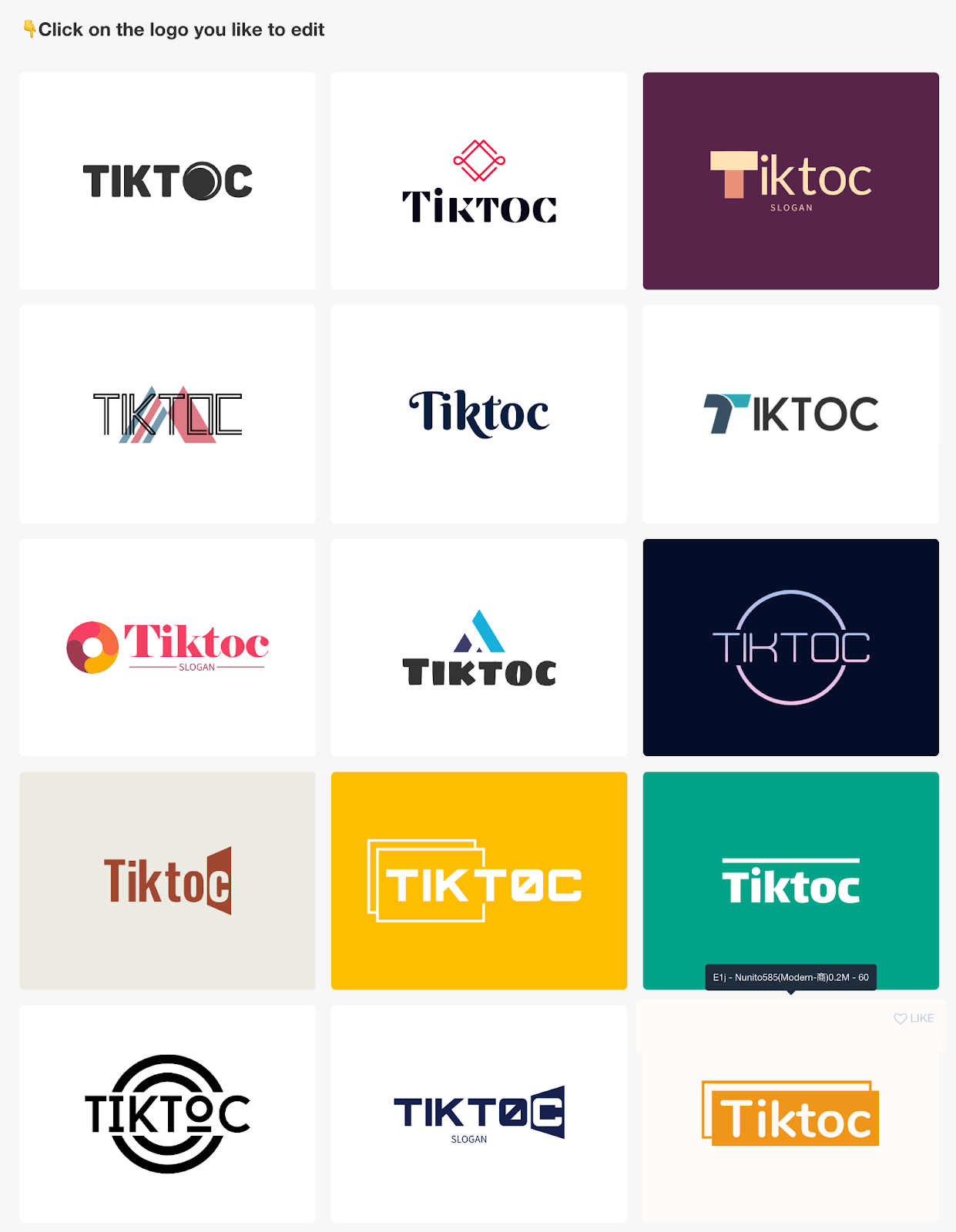
When you find a design that you like, you can click on the edit button to tweak details of this design.
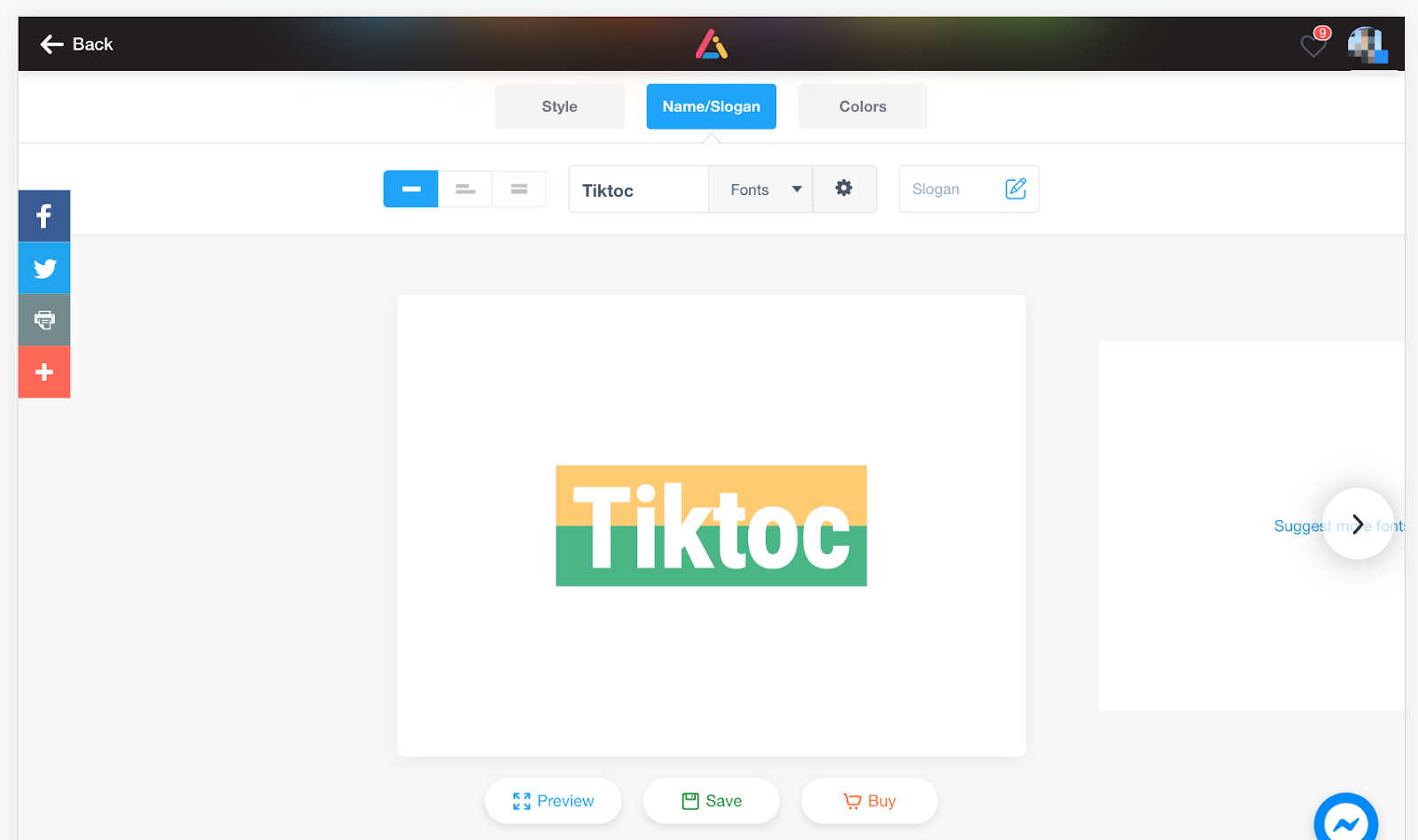
You can add a slogan and go to the colors tab to see different color combinations of this design.
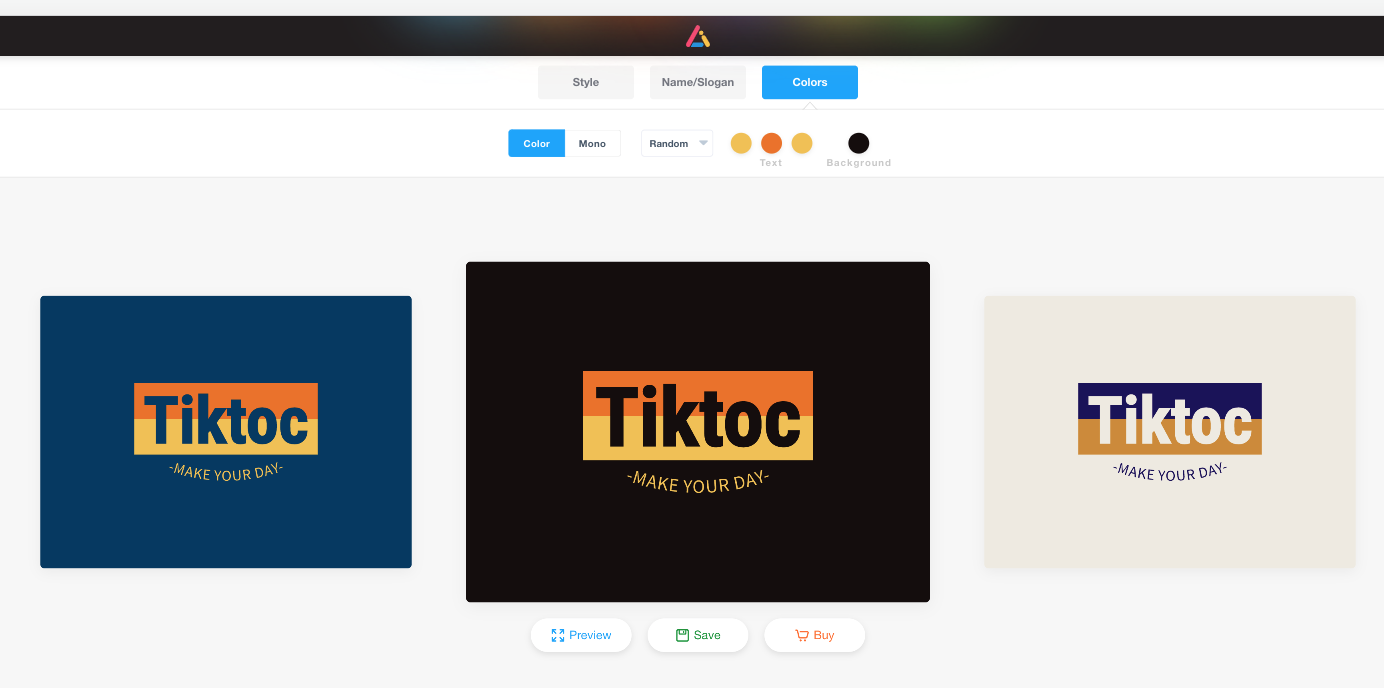
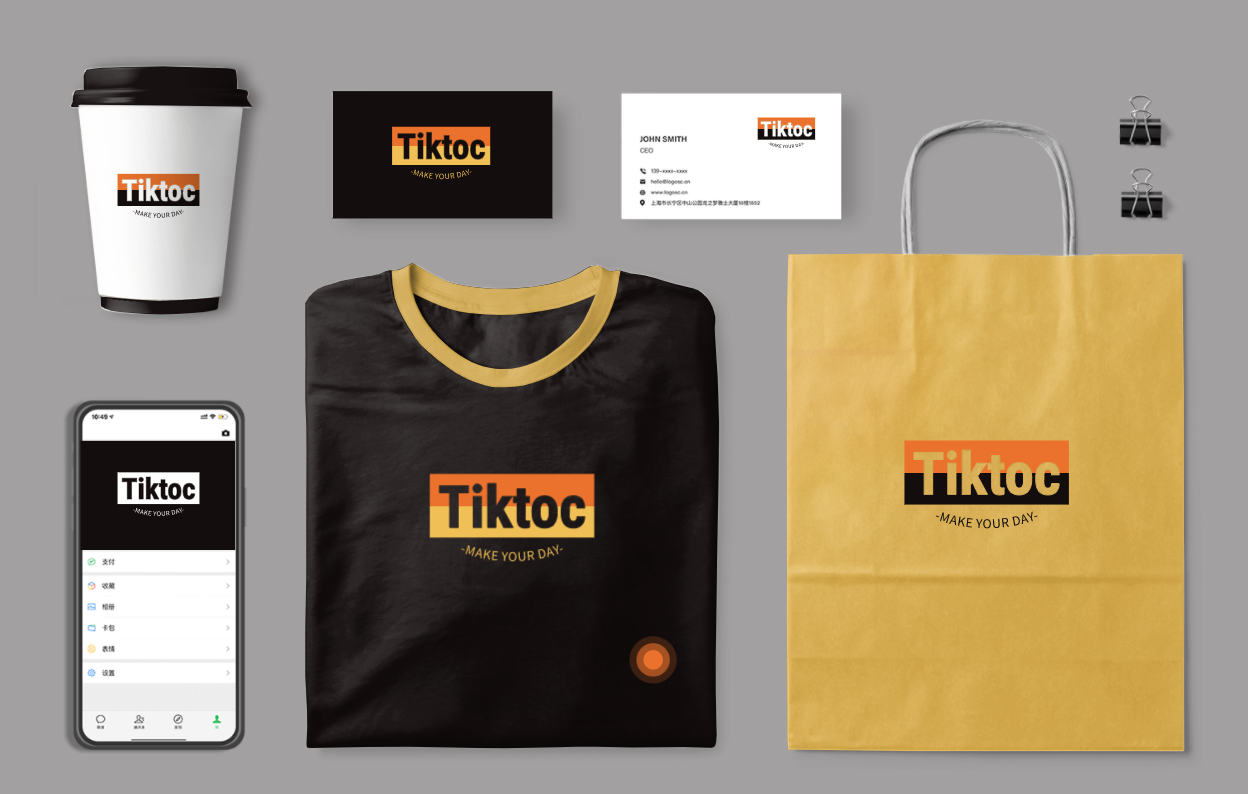
You can also click on the preview button to see different mockups of this design.
Benefits of text logo
Text based logos are very popular among brands because of their simplicity. Without a separate logo symbol, people tend to focus more on the logo text therefore leaving a stronger impression of the actual brand name.